Choosing the right summer vacation fonts is essential for creating bright, fun, and engaging holiday designs. Summer visuals are all about relaxation, adventure, and joy. Therefore, typography must reflect that same energy.
From travel posters to social media content and branding, fonts play a major role in setting the tone. The right typography can instantly make your design feel like a sunny getaway. On the other hand, the wrong font can make your design feel flat and uninteresting.
In this article, we will explore the best summer vacation fonts, their characteristics, and how to use them effectively in holiday-themed designs.
Why Summer Vacation Fonts Matter in Design
Understanding summer vacation fonts helps designers create visuals that feel lively and appealing. During the holiday season, people are drawn to designs that feel fun and relaxing.
Good typography can:
- Capture attention quickly
- Create a cheerful atmosphere
- Strengthen brand identity
- Enhance storytelling
Moreover, summer designs often rely on emotion. As a result, typography must support the overall mood.
Characteristics of Summer Vacation Fonts
1. Playful and Fun Style
Summer fonts often have relaxed and friendly shapes. These styles reflect joy and freedom.
2. Bold and Eye-Catching
Bright and bold typography helps designs stand out, especially on social media.
3. Rounded and Soft Shapes
Rounded fonts feel more approachable and casual.
4. Creative and Expressive
Many summer fonts include unique elements that make designs feel more dynamic.
Summer Vacation Fonts: Best Typography for Holiday Designs
Vacation
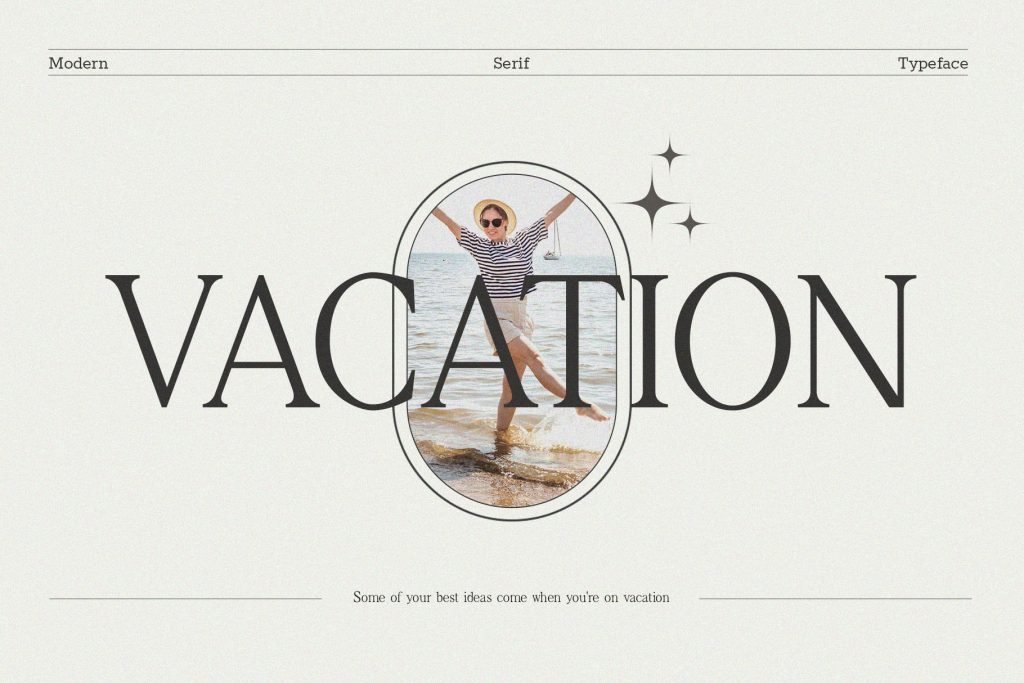
Vacation is a beauty serif font that combines elegance with versatility. This font perfect for beach-themed quotes. This beauty serif font offers flexibility while maintaining its refined and aesthetic appeal.
Circle Amolens
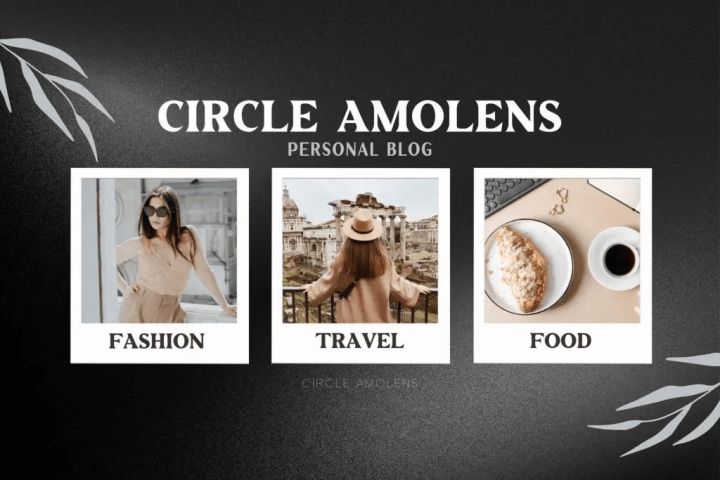
Discover Circle Amolens, a bold serif font designed to bring sophistication and elegance to your creative projects. With its clean and stylish lettering, Circle Amolens is perfect for travel website, offering timeless charm and versatile usage.
Avone
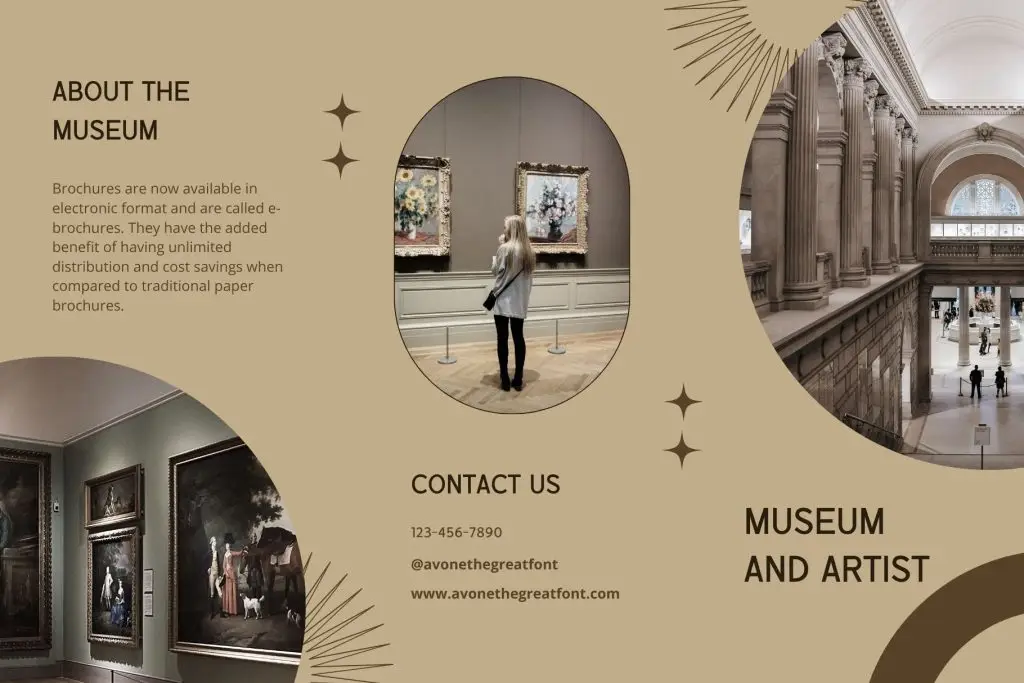
Avone is a sophisticated sans serif font designed to bring elegance and boldness to your creative projects. Its versatile style makes it perfect for museum promotional banners. With Avone, every design gains a touch of sophistication and lasting impact.
Fagheto
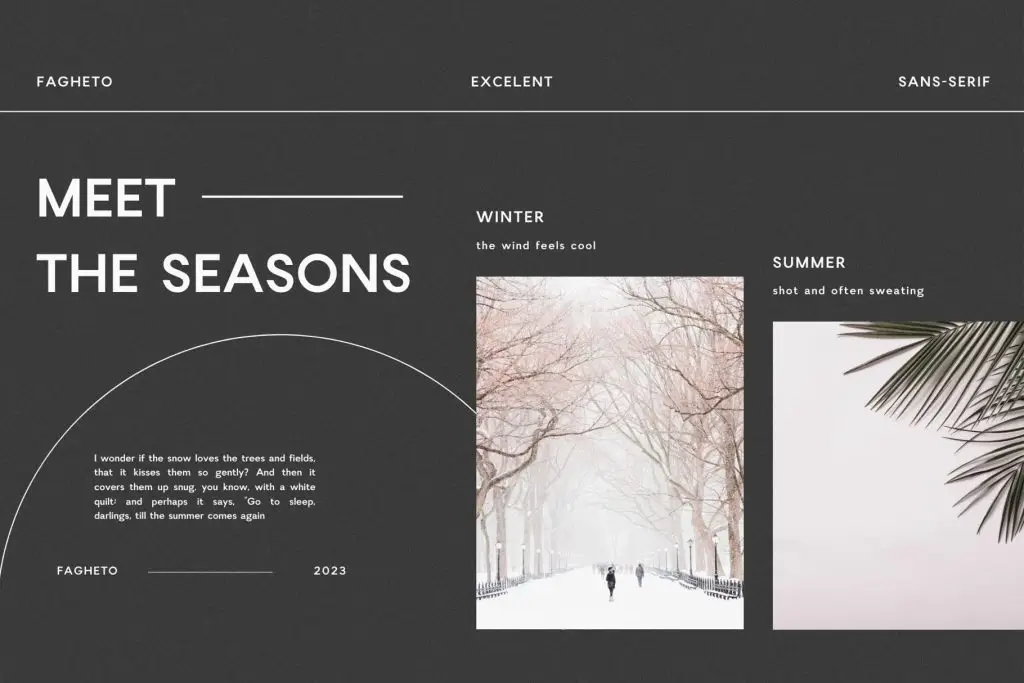
Meet Fagheto, an elegant and bold sans-serif font crafted to elevate your creative projects. With its versatile style and meticulously designed letters, Fagheto is perfect for social media posts.
Kefhila
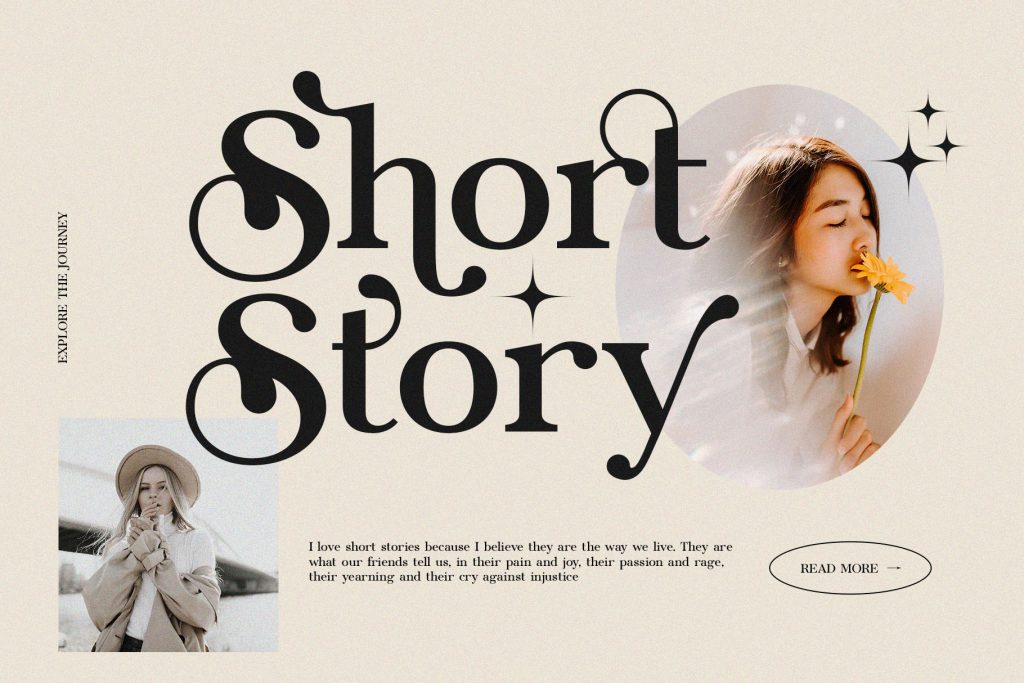
Kefhila is a feminine indie serif font with unique organic letterforms, blending curves and angles for a sophisticated yet whimsical design. This feminine indie serif font is perfect for everything from branding to editorial work, like vacation diaries.
How to Choose Summer Vacation Fonts
1. Match the Theme
Different themes require different fonts:
- Beach → Serif fonts like Vacation
- Versatile → Bold fonts like Avone and Fagheto
- Feminine → Script fonts like Kefhila
2. Consider Your Audience
For example:
- Young audience → Fun and bold fonts
- Luxury audience → Clean and elegant fonts
3. Focus on Readability
Even creative fonts must be easy to read.
How to Use Summer Vacation Fonts Effectively
1. Use Fonts as a Focal Point
Typography can be the main visual element. Therefore, keep the layout simple.
2. Combine Fonts for Balance
Pair fonts to create contrast:
- Bold font → Headline
- Simple font → Body text
3. Use Bright Colors
Typography works best with colors like:
- Yellow
- Orange
- Blue
- Coral
These colors enhance the summer vibe.
4. Create Visual Hierarchy
Use different sizes to guide attention:
- Large → Main message
- Medium → Supporting text
- Small → Details
How Summer Typography Enhances Design
Typography enhances summer design by making visuals:
- More engaging
- Easier to understand
- Emotionally appealing
For example, playful fonts create excitement, while elegant fonts create relaxation.
Conclusion
Choosing the right summer vacation fonts is essential for creating attractive and engaging holiday designs. Fonts like Vacation, Circle Amolens, Avone, Fagheto, and Kefhila offer different styles that can match various summer themes.
Moreover, by combining typography with color, layout, and spacing, designers can create visuals that truly capture the spirit of summer. In the end, typography is not just about style; it is about creating an experience.